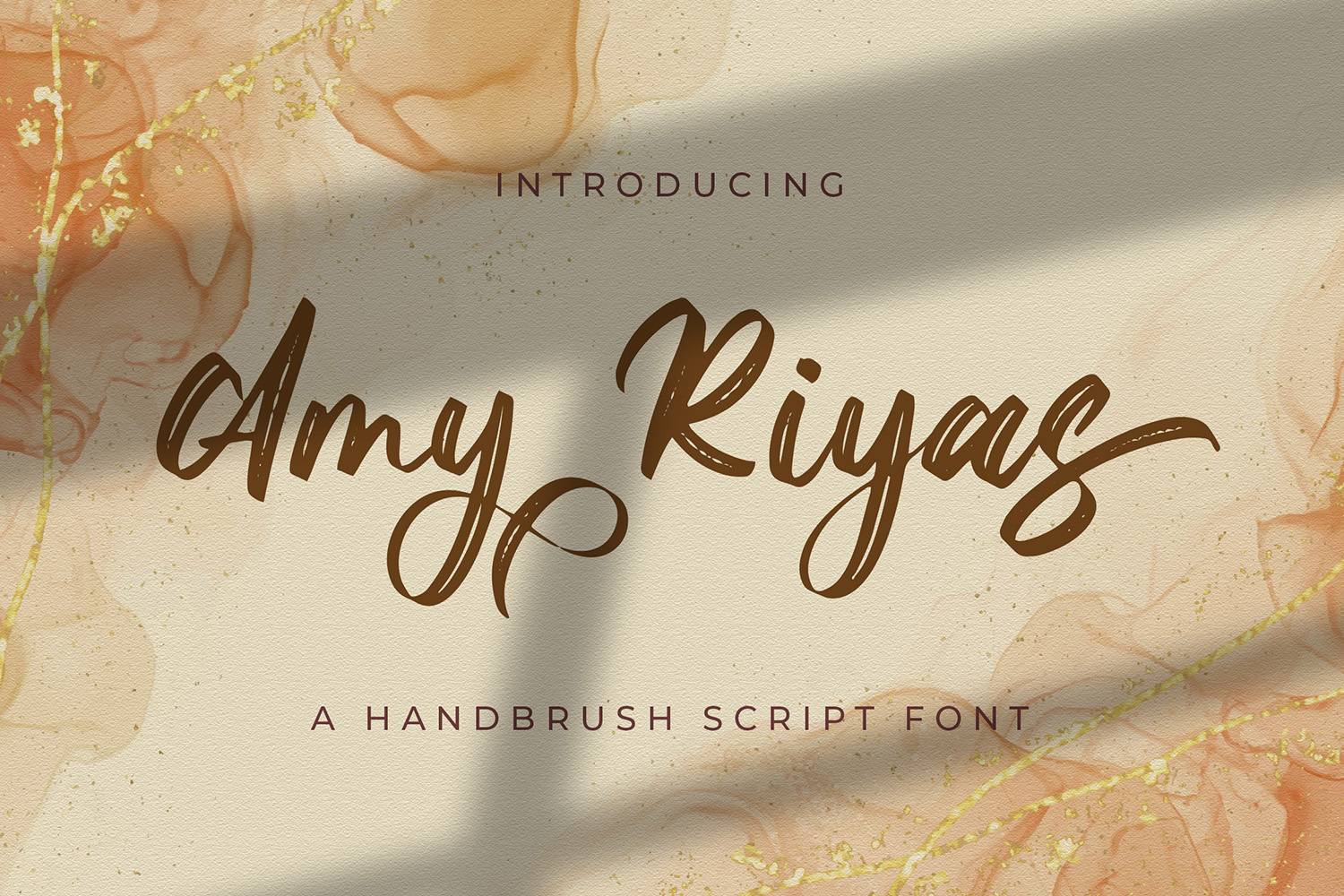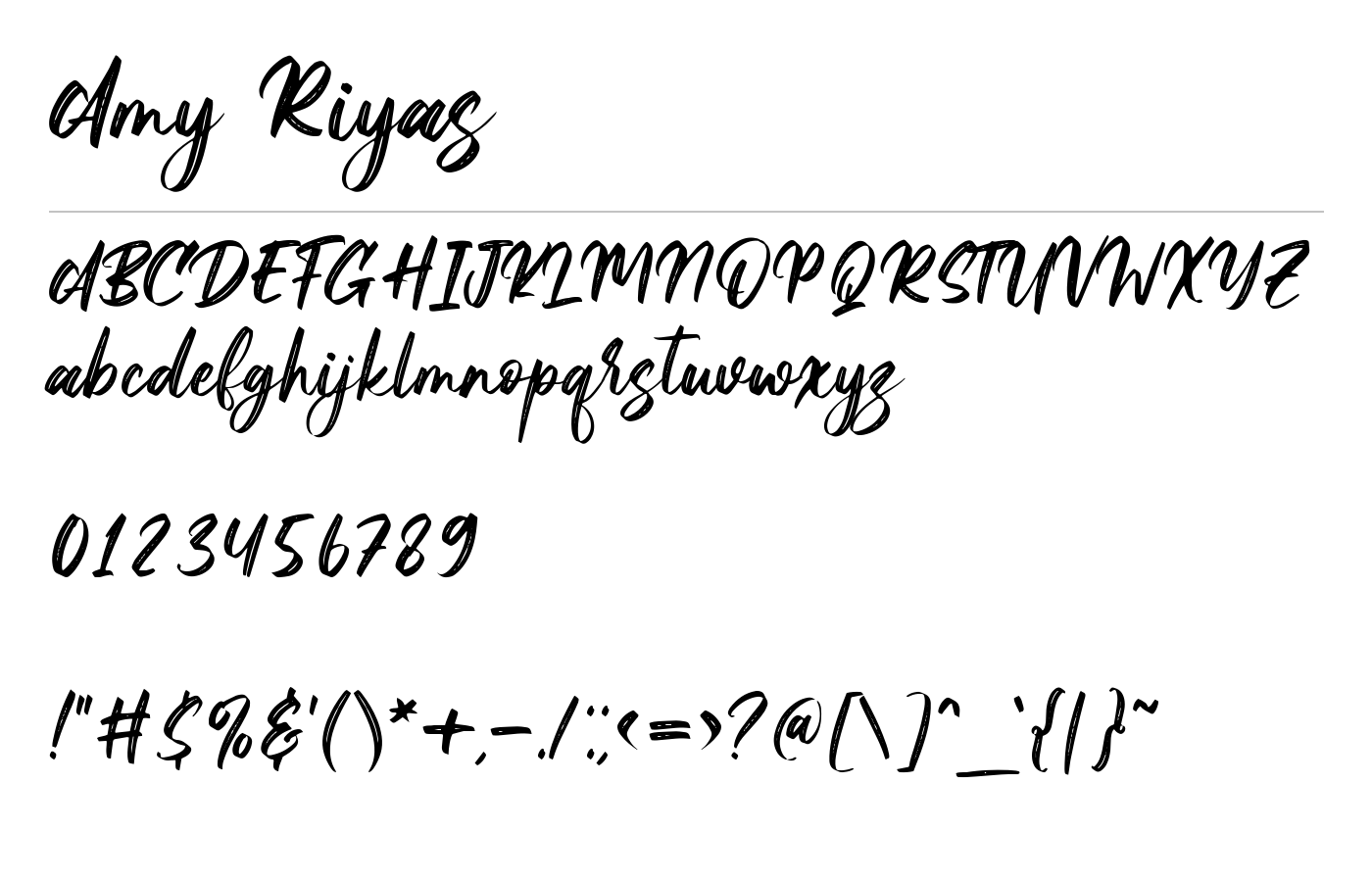
Amy Riyas is a lively and expressive script font with a handwritten, brush-style feel that combines casual charm with artistic flair. Its moderately high contrast strokes and fluid letterforms create an informal yet stylish personality, making it ideal for creative branding, invitations, and headlines where a personal, approachable touch is desired. This font works well in projects that aim to convey warmth and creativity while maintaining readability and a sense of individuality.
Amy Riyas Font
About Amy Riyas Font